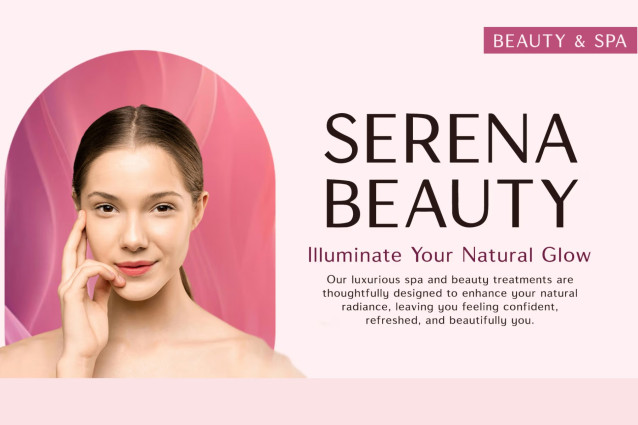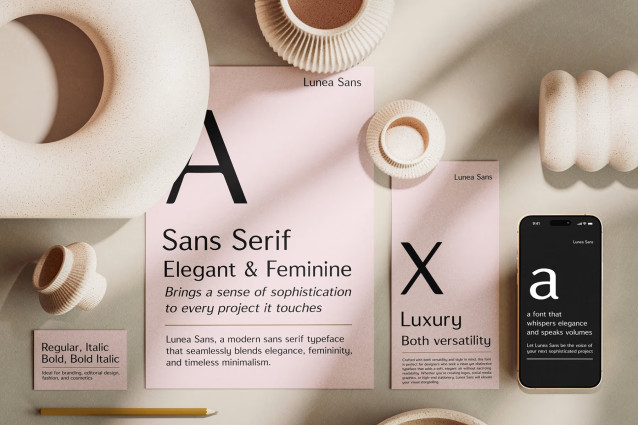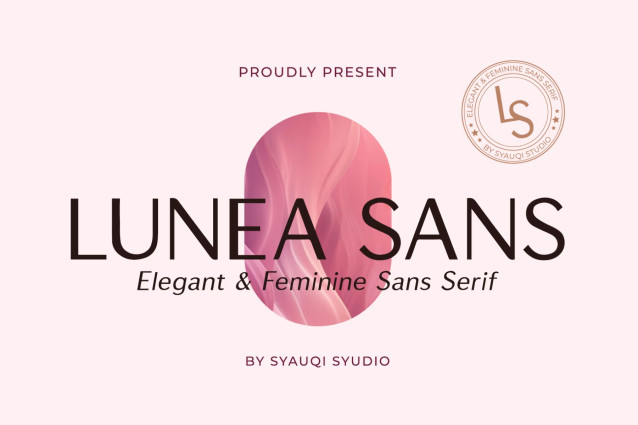
Lunea Sans Font
Lunea Sans Font, a modern sans serif typeface that seamlessly blends elegance, femininity, and timeless minimalism. Designed with graceful curves and refined proportions, Lunea Sans brings a sense of sophistication to every project it touches — from luxury branding to wedding invitations, editorial layouts, and beauty packaging.
Crafted with both versatility and style in mind, this font is perfect for designers who seek a clean yet distinctive typeface that adds a soft, elegant flair without sacrificing readability. Whether you’re creating logos, social media graphics, or high-end stationery, Lunea Sans will elevate your visual storytelling.